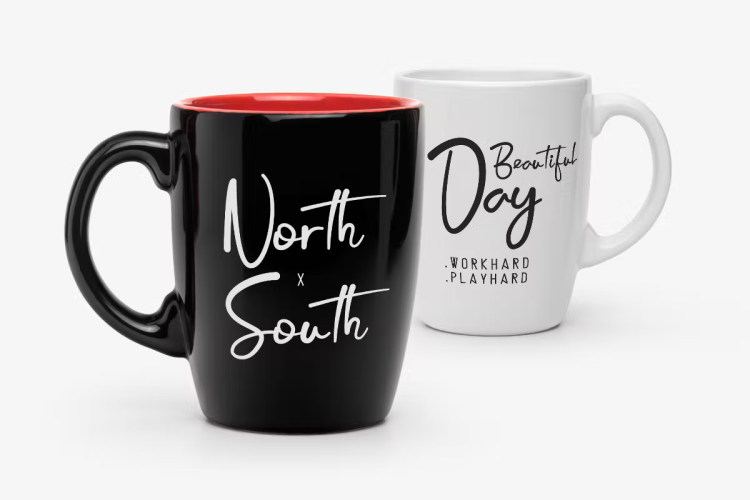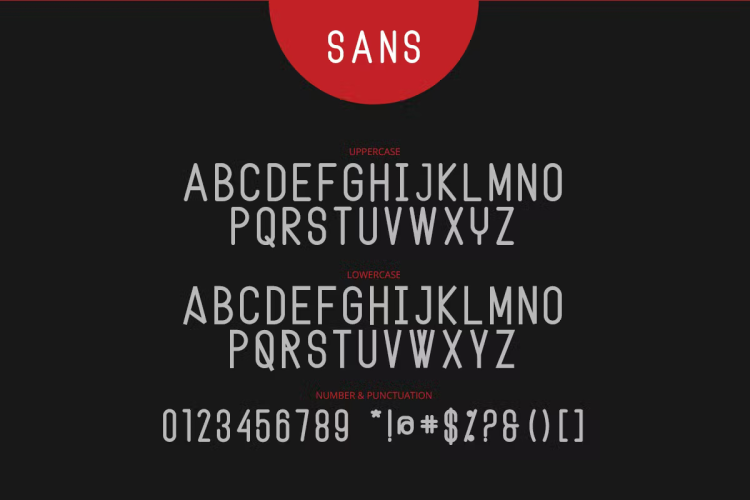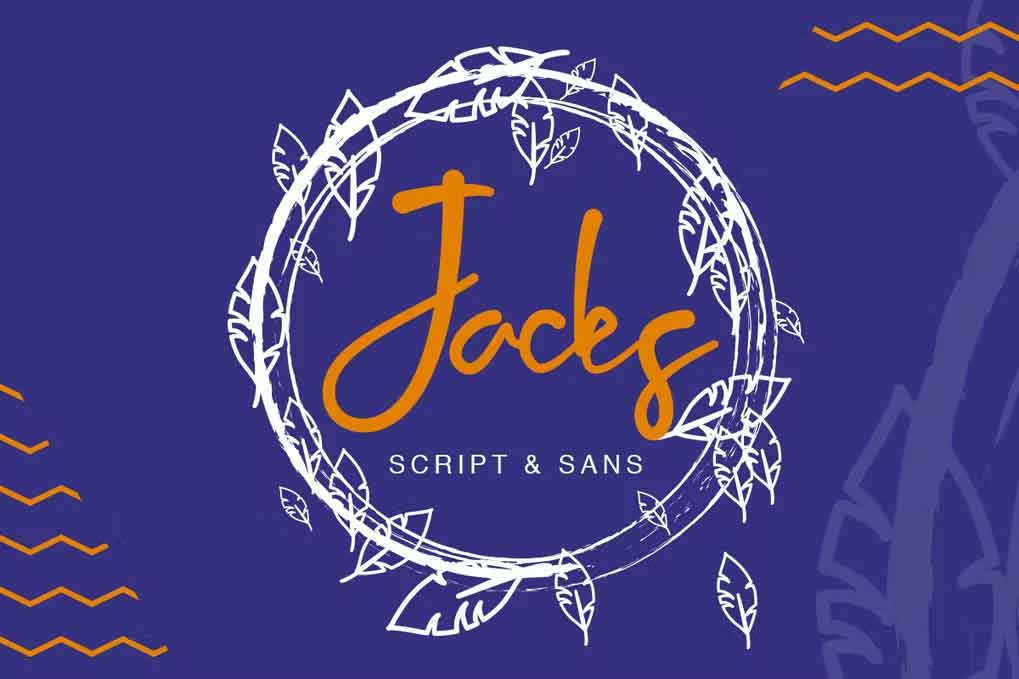
Jacks Font
Introducing Jacks Font Duo – Modern script and sans serif fonts, perfect for many different project ex: quotes, blog header, poster, wedding, branding, logo, fashion, apparel, letter, invitation, stationery, etc.
Where Jacks Font works best
Jacks Font brings a personal, handwritten warmth to invitations, menus and place cards.
Craft brands — coffee, cosmetics, bakery — use scripts like Jacks Font for signature-style logos and labels.
Pair Jacks Font with a plain sans for quotes, stories and Pinterest pins that feel handmade.
What is Jacks Font good for?
Jacks Font is a Script And Handwritten typeface tagged Branding, Modern, Poster, Sans Serif. It works well for headlines, logos, posters, social media graphics and branding projects that need a distinctive script and handwritten look.